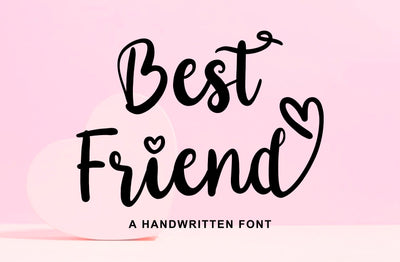
Best Friend - Handwritten font
Best Friend - a Handwritten Chic and Lovely Script Font
introducing our new "Best Friend" Modern Handwritten Script with Modern Elegant Style is perfect for branding, logos, invitation, master heads, and more.